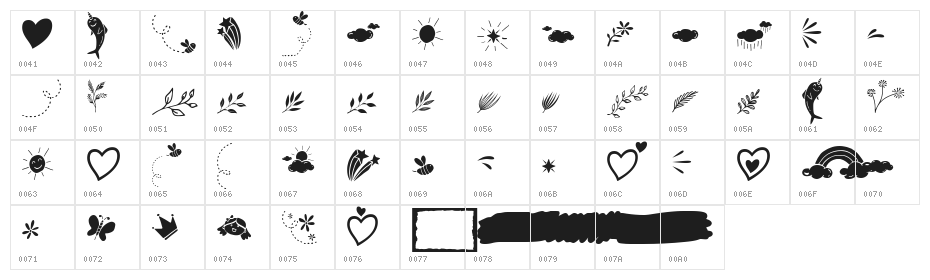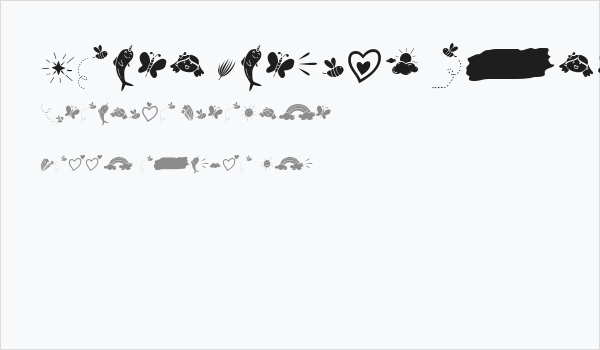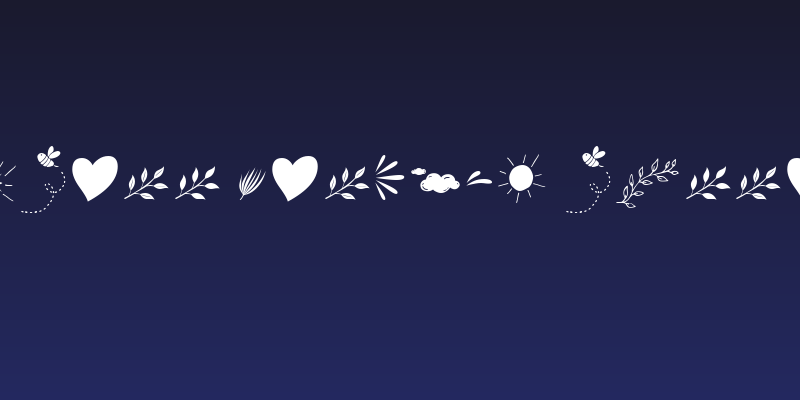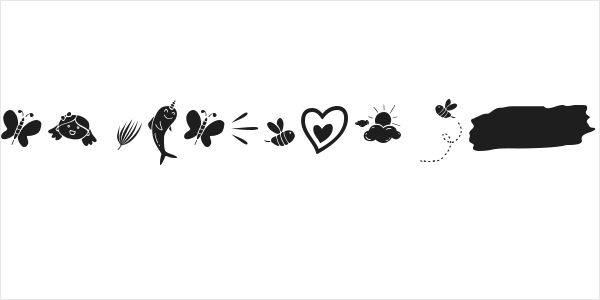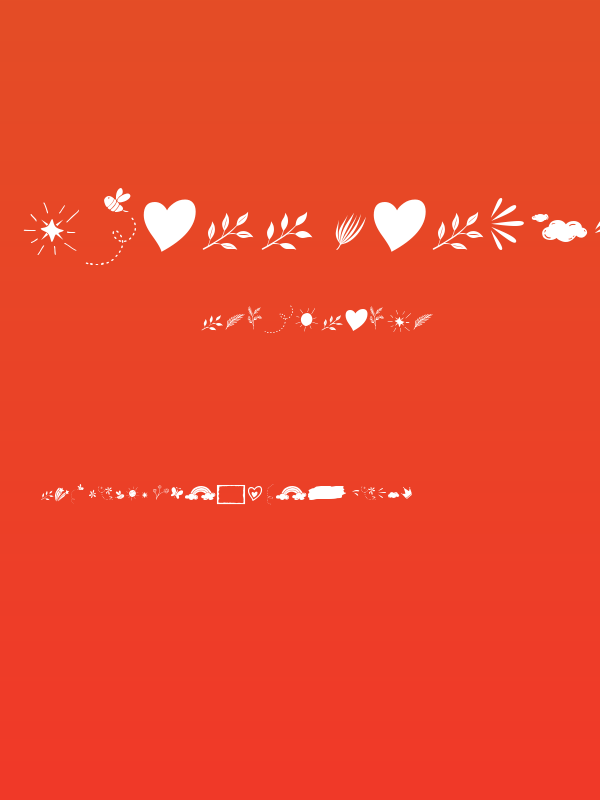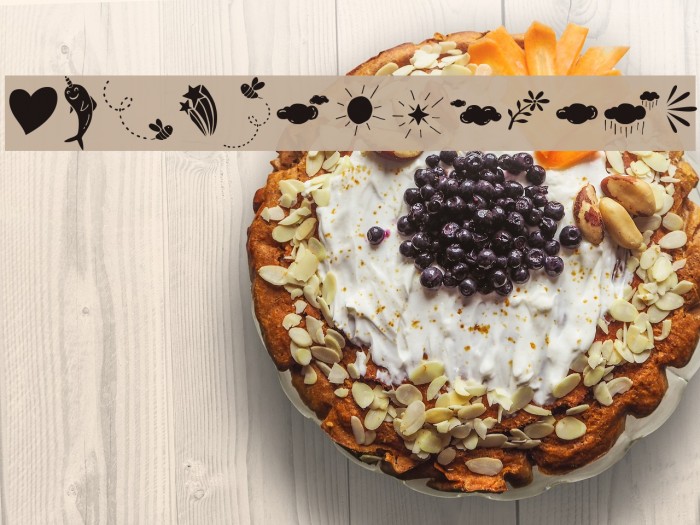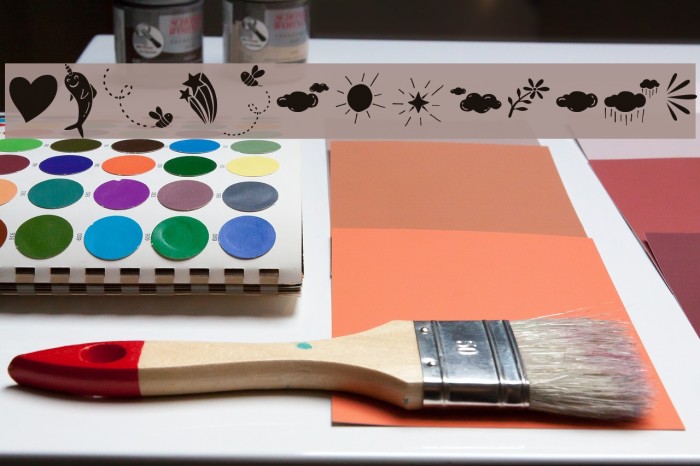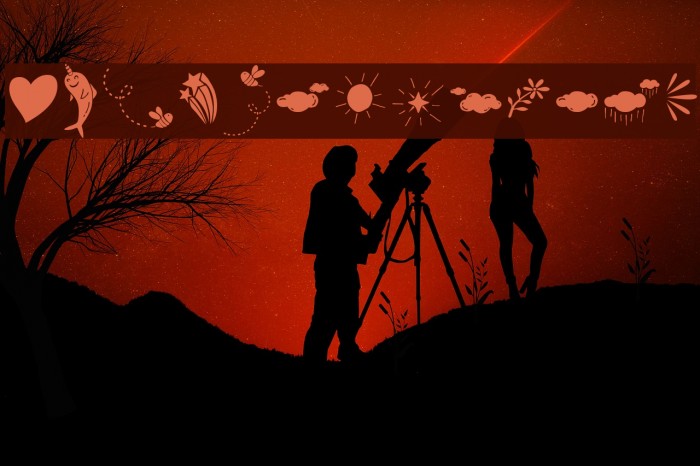
Heart Warming Extra Font
Heart Warming Extra Description
A playful and whimsical dingbat set featuring hand-drawn icons such as hearts, fish, flowers, sun, clouds, leaves, bees, rainbows, and decorative brush strokes. The icons have a friendly, organic feel with varying line weights and rounded edges, evoking warmth and positivity.
| Overall Style | Whimsical, Playful, Hand-drawn |
| Use Case | Decorative elements, embellishments, icons, borders |
| Proposed Projects | Greeting cards, children's books, scrapbooking, invitations, decorative borders, playful branding. |